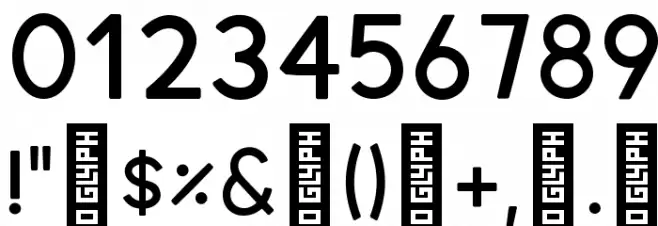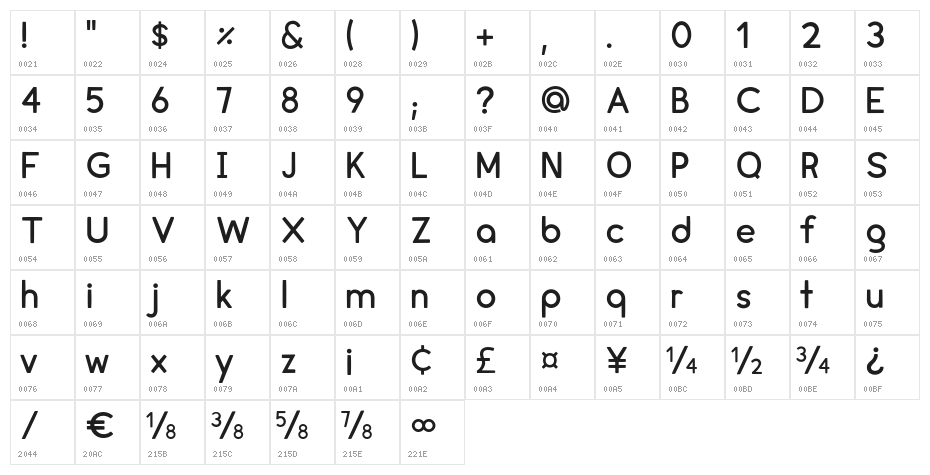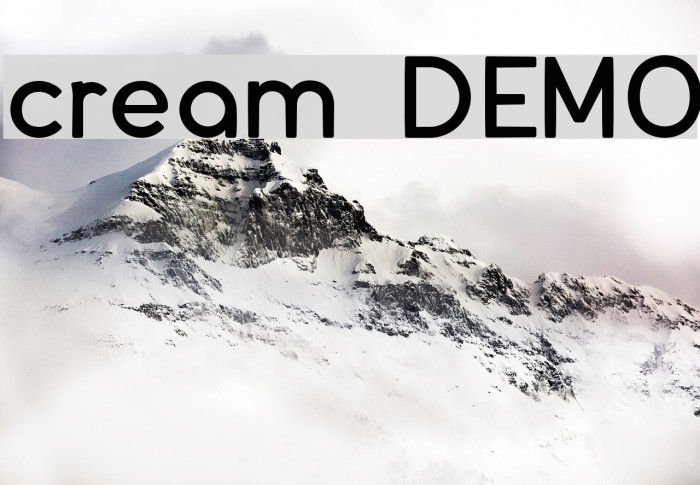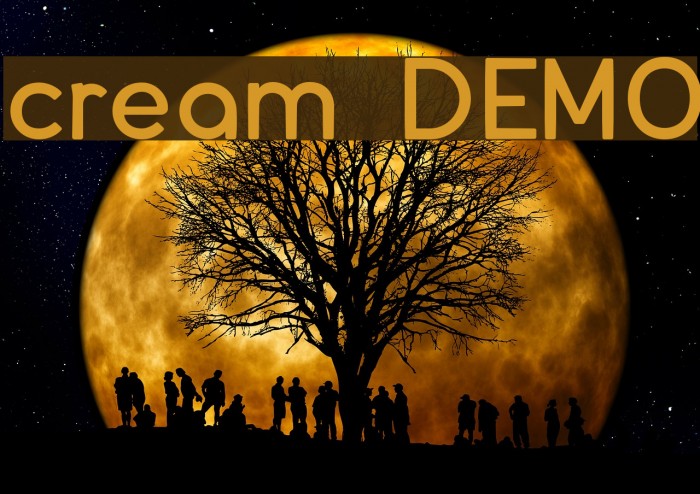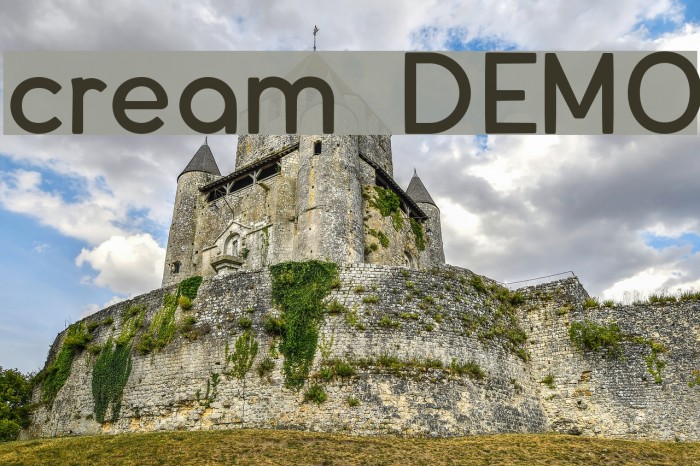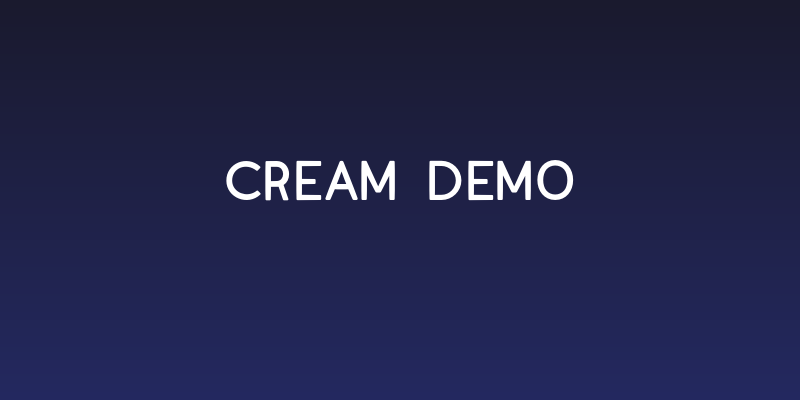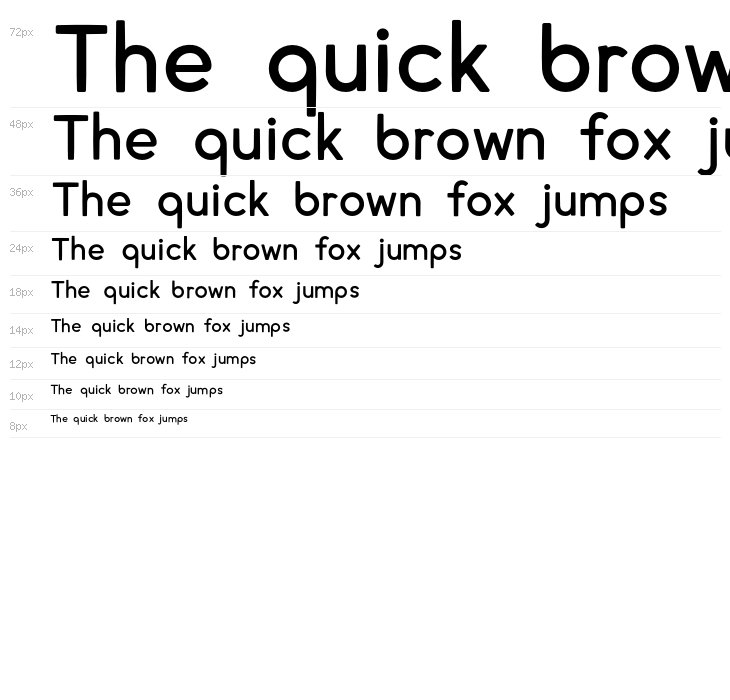
cream DEMO Font
cream DEMO Description
This font features a clean and modern sans-serif design, characterized by its smooth curves and uniform stroke width. The letters are well-proportioned, offering a balanced and harmonious appearance. The uppercase and lowercase characters maintain a consistent style, with rounded edges that add a friendly and approachable feel. The numerals are clear and easily distinguishable, making them suitable for various applications. Special characters are included, maintaining the overall aesthetic of the font. Its simplicity and clarity make it versatile for both digital and print media.
| Proposed Projects | Ideal for branding, web design, advertising, and editorial layouts. |